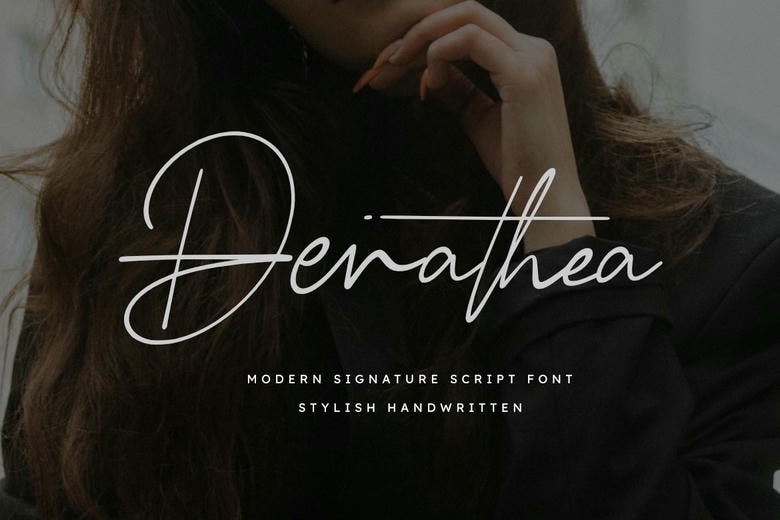
Derathea Font
Derathea is a stylish handwriting font designed to bring elegance and a personal feel to your work. Its hand-drawn strokes and balanced signature style add a chic, high-end look to your brand.
This font works well for beauty salon branding, wedding invitations, photography watermarks, and promotional materials. Its smooth flow and unique signature shapes help your message stand out in both digital and print formats.
Derathea Handwritten Script Font